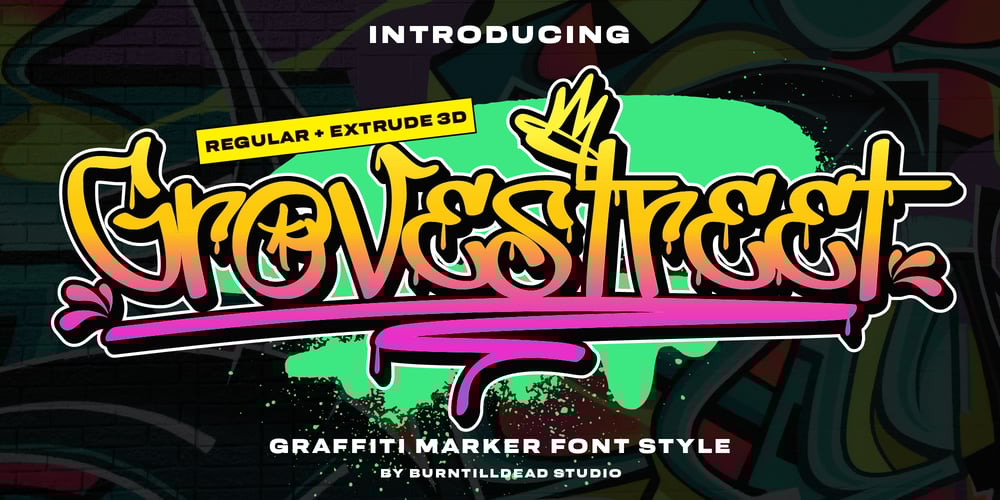
Grovestreet Font Family was designed by Eric Kurniawan and published by Burntilldead. Grovestreet contains 2 styles and family package options. Introducing Grovestreet, a graffiti font style inspired by street art and graffiti culture. With dripping ink details and alternates, give it a rebellious and playful vibe also stands out effortlessly. Grovestreet comes with two styles: Grovestreet Regular and Grovestreet Shadow. This font is one of the most readable graffiti, bringing an unmistakable street style that’s bold and unique. This font is perfect for designing streetwear brands, music album covers, mural-inspired art, and any design projects with a street art or urban theme.